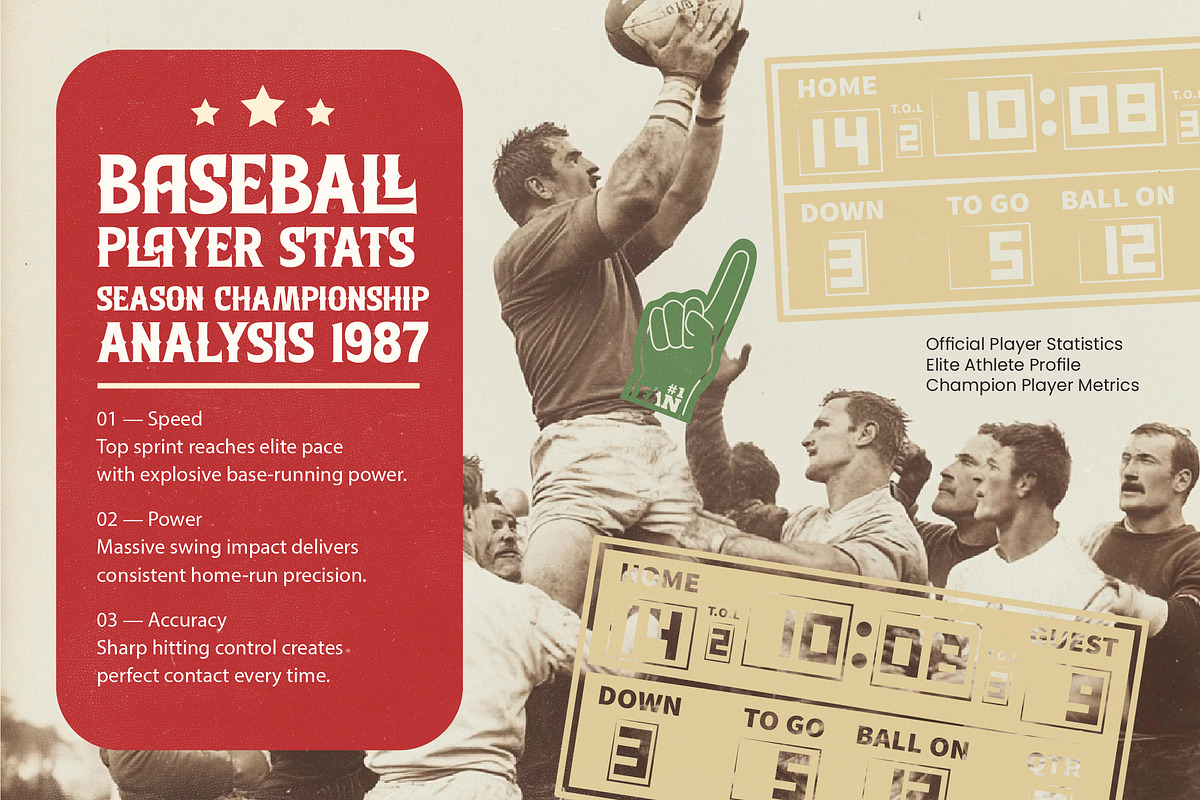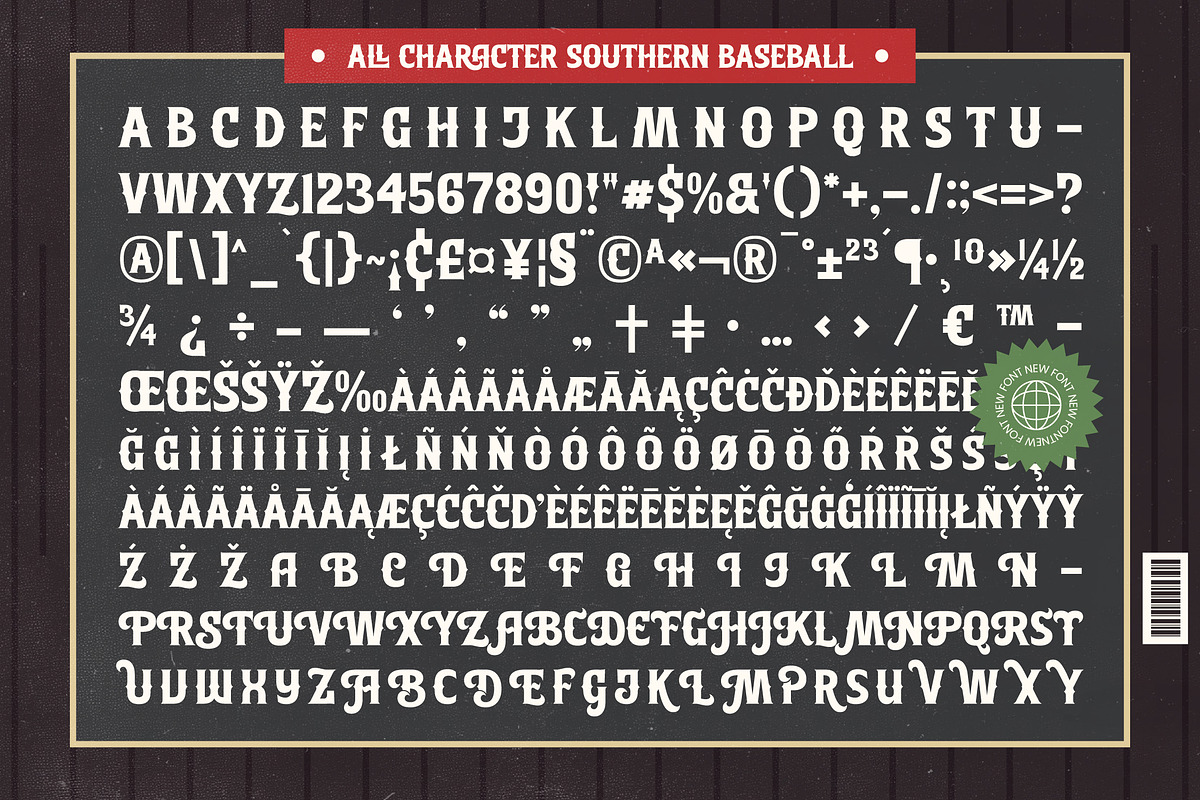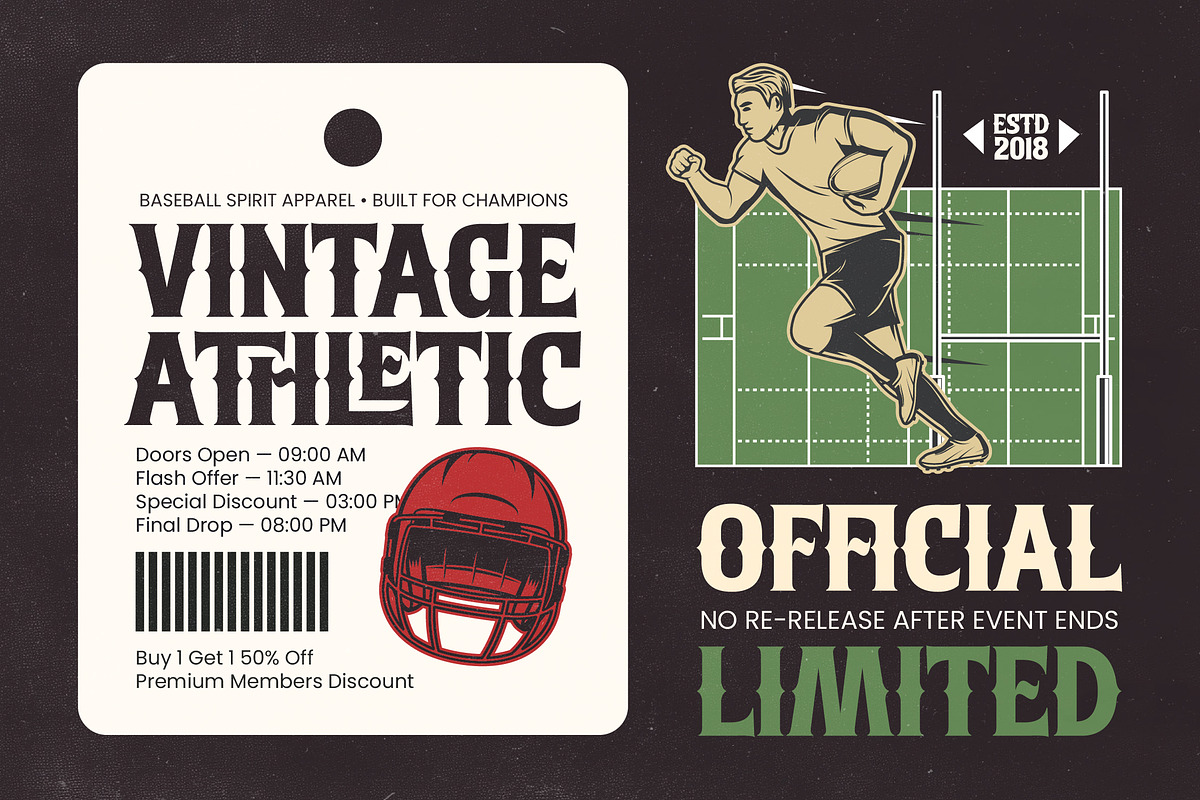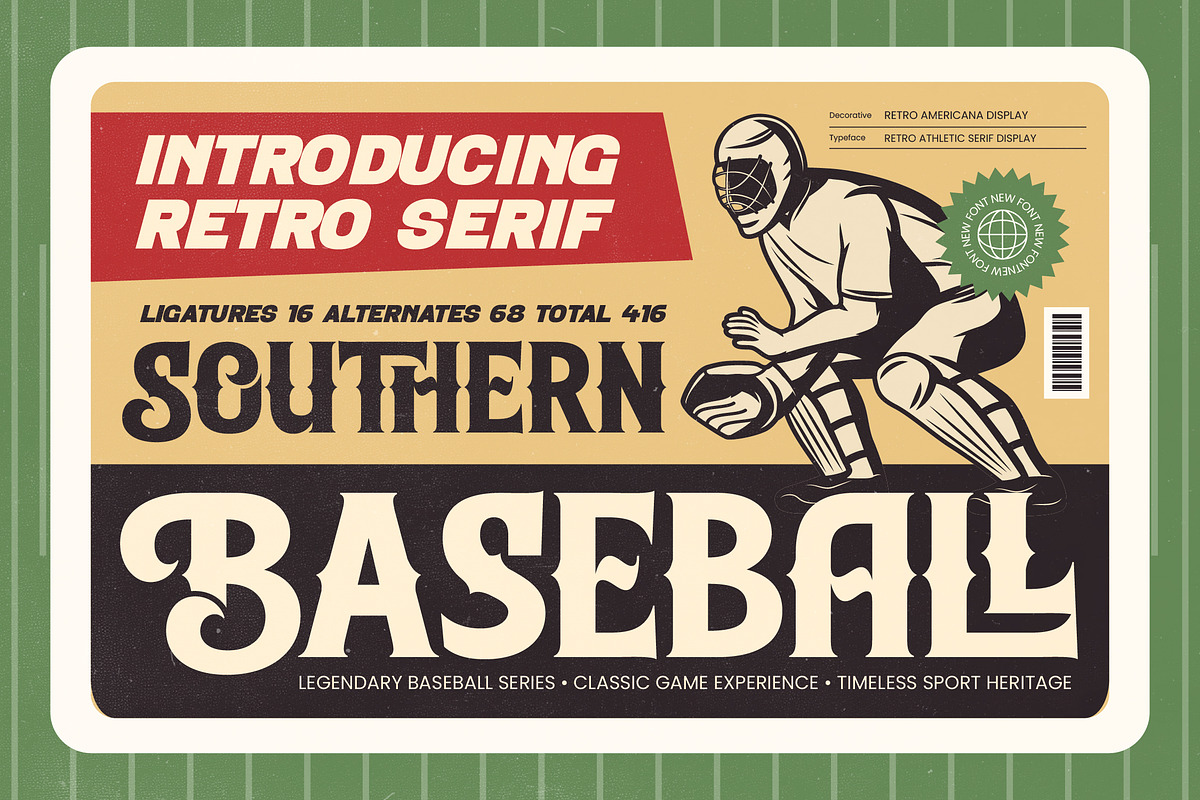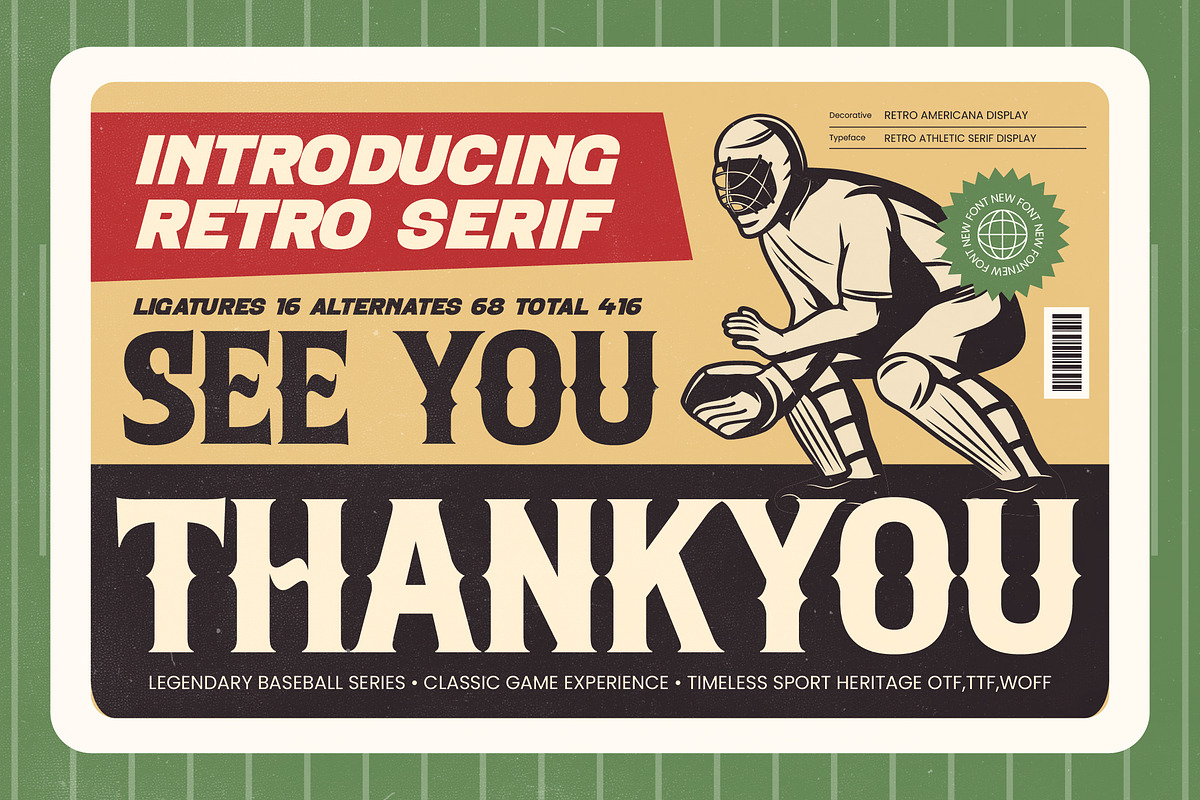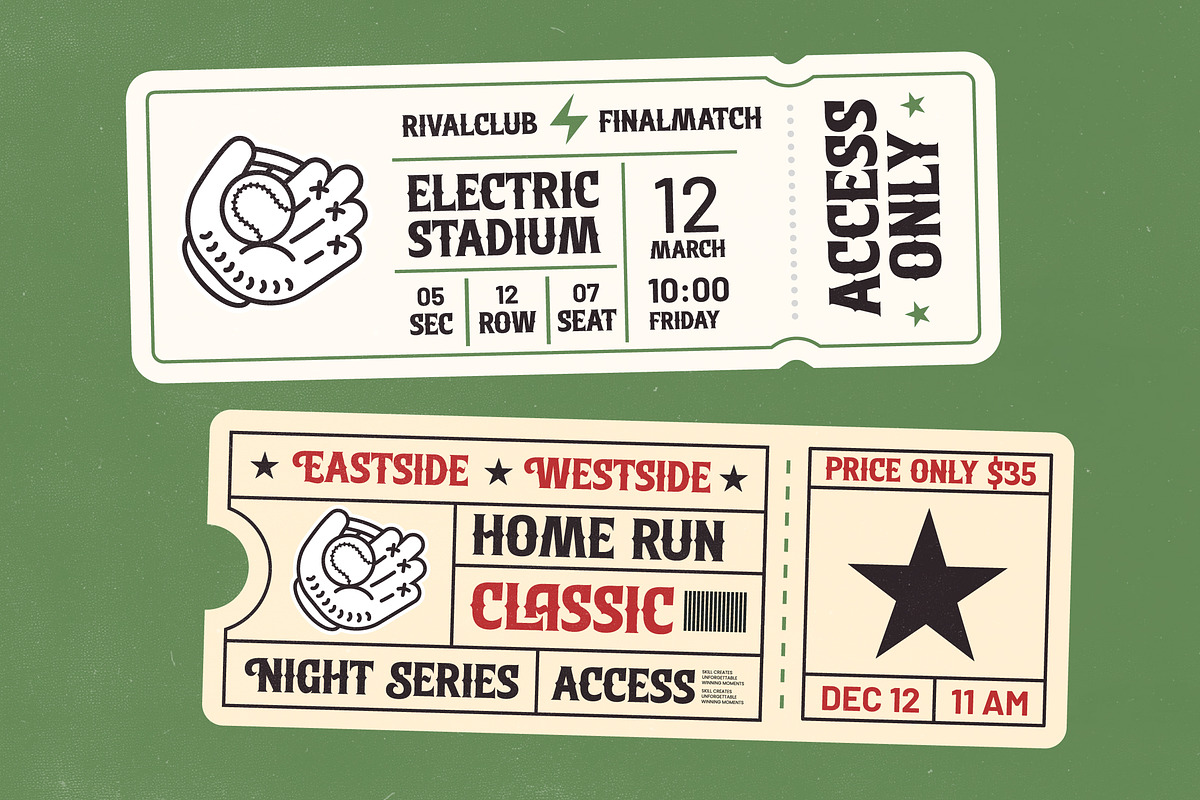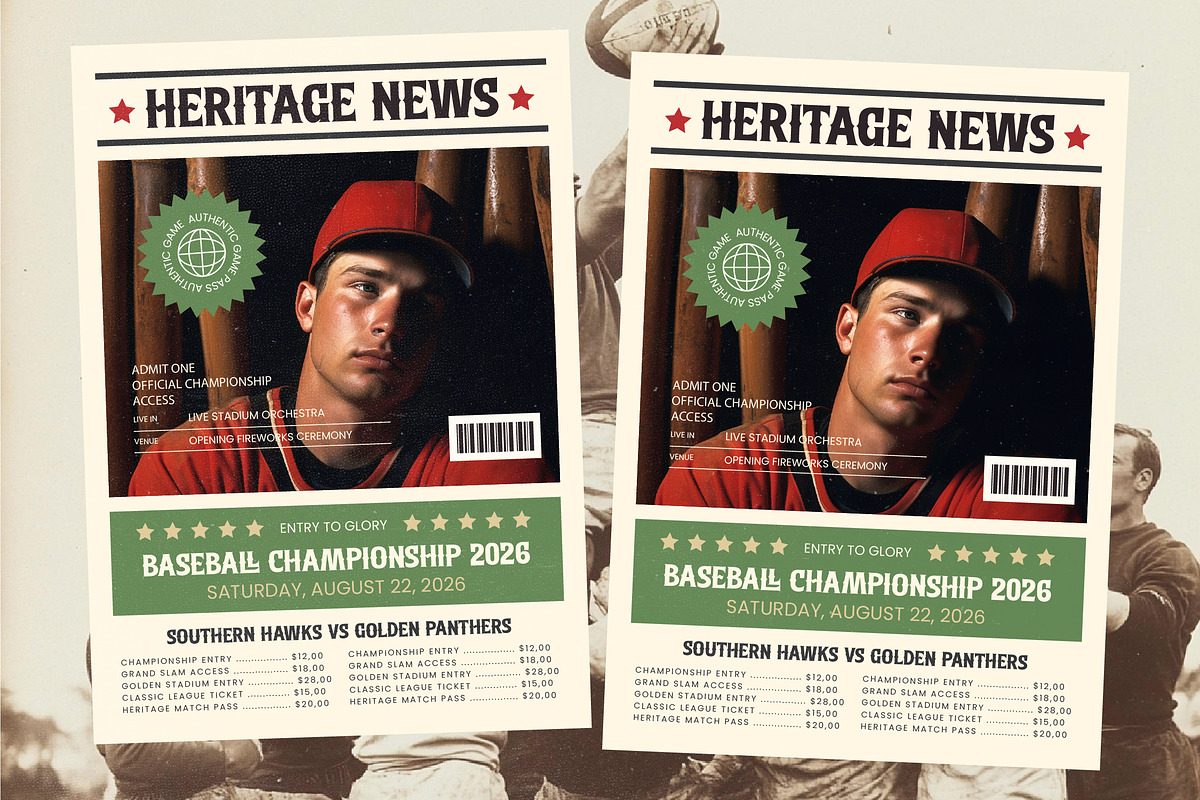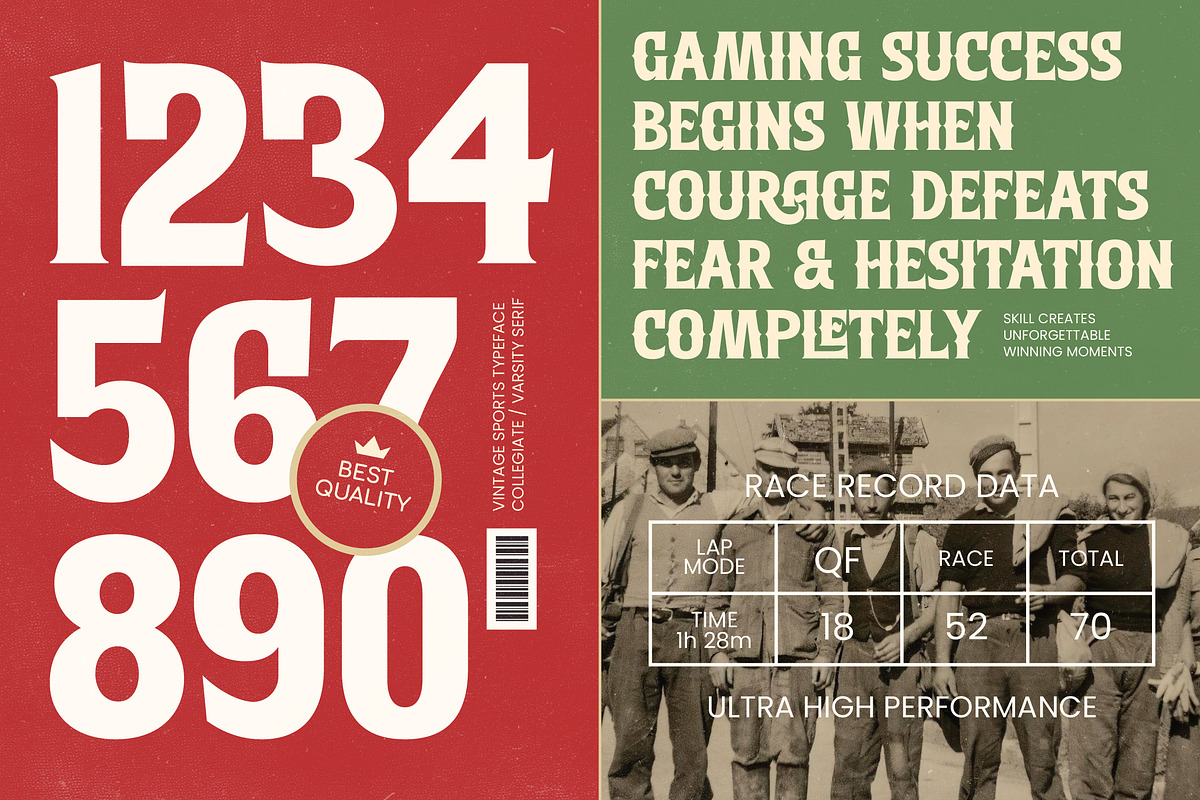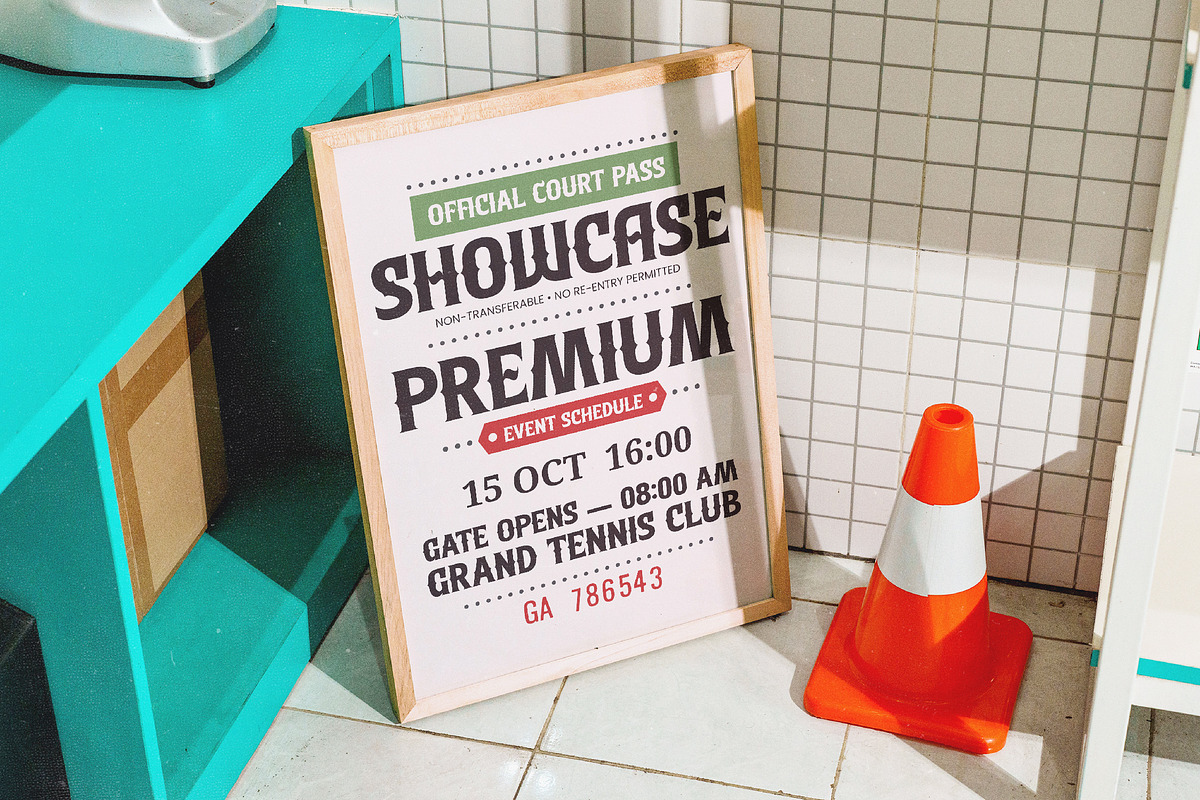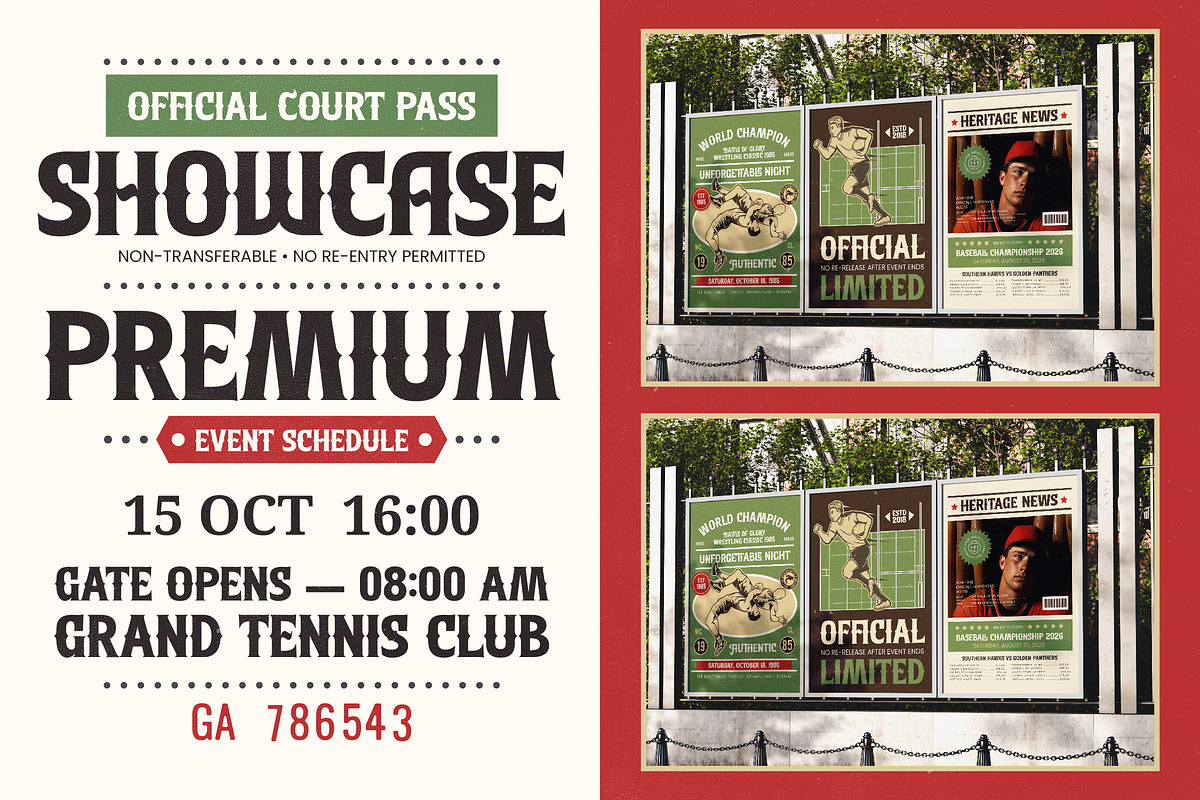
Southern Baseball Retro Athletic
Southern Baseball - Retro Athletic Serif Display , Capture the essence of vintage Americana with a typeface that perfectly embodies bold nostalgia and timeless sport heritage. Southern Baseball - Retro Athletic Serif Display is a masterfully crafted display font designed to deliver a classic game experience through its heavy-weight presence and decorative serif flourishes. Its aesthetic evokes the golden era of sports, making it an essential asset for designers looking to inject authentic grit and commanding personality into their visual compositions.
Experience unparalleled design flexibility with a professional-grade toolset that caters to the demands of modern global branding. This typeface boasts an impressive library of 16 ligatures and 68 alternates, allowing for bespoke typography tailored to any creative brief. With its extensive multilingual support, Southern Baseball - Retro Athletic Serif Display adapts seamlessly across global markets, making it incredibly versatile for international projects. This technical depth ensures that Southern Baseball - Retro Athletic Serif Display remains a high-performance asset in any professional's digital library.
Elevate your creative vision by applying this powerhouse typeface to a wide array of high-impact visual projects and luxury branding initiatives. Southern Baseball - Retro Athletic Serif Display is the perfect choice for sports logo design, vintage apparel graphics, and bold editorial layouts. It excels in packaging design and promotional posters, where its impactful silhouettes and athletic aesthetic provide a distinctive brand identity that resonates with power and sophistication.
Secure a competitive edge in your design toolkit with a typeface that masterfully bridges the gap between historic heritage and contemporary marketing. Southern Baseball - Retro Athletic Serif Display offers more than just visual appeal; it provides a comprehensive design solution for creators seeking maximum readability and high-contrast impact. Whether you are developing social media content or large-scale signage, Southern Baseball - Retro Athletic Serif Display ensures your message is delivered with unwavering strength and timeless style.